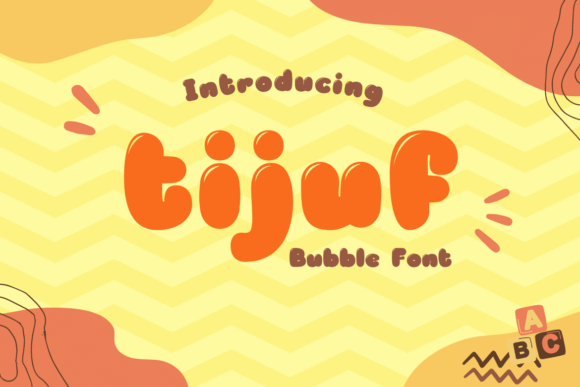
Introducing Tijuf Font, the ultimate display font that will transform your design projects into captivating masterpieces. Unleash your creativity with this unique and playful typeface, meticulously crafted to evoke joy and captivate audiences. Tijuf's vibrant personality shines through in every character, adding a touch of whimsy to posters, logos, social media graphics, and more.
Dive into a world of limitless possibilities with Tijuf. Its versatile design effortlessly complements other fonts in our collection, allowing you to weave captivating visual narratives that leave a lasting impression. From bold headlines that command attention to playful subheadings that engage readers, Tijuf is the perfect font to elevate your designs and make them shine.
With Tijuf, you'll discover a font family that seamlessly adapts to your every need. Whether you're crafting titles that demand attention or crafting body text that flows effortlessly, Tijuf has you covered. Its carefully balanced letterforms and generous spacing ensure readability and visual harmony, making every word a delight to behold.
Unlock your imagination and embark on a creative journey with Tijuf. Let its charming curves and distinctive shapes inspire you to create designs that ignite emotions and leave a lasting impact. Tijuf is more than just a font; it's a gateway to a world of visual storytelling where your ideas take center stage.
Don't settle for ordinary fonts that blend into the background. Embrace the extraordinary with Tijuf. Experience the thrill of creating designs that captivate, engage, and leave a lasting impression. Discover the power of Tijuf and unleash your creative potential today!